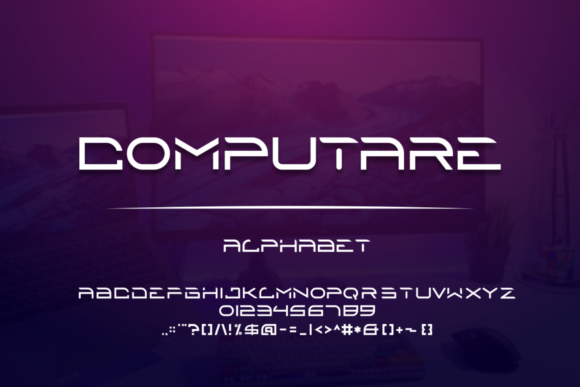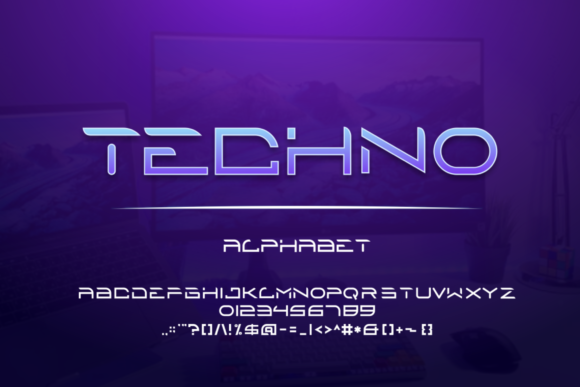
Introducing Eproxy Font: The Modern Sans Serif for Creative Projects
Have you ever been in the middle of a design project, and suddenly, you’re stuck on finding the perfect font? I recall a recent experience where a client asked for a futuristic and sleek logo, and I was on a mission to find a font that would match their vision. After scouring through numerous font libraries, I stumbled upon **Eproxy Font**, a thin and modern sans serif font that instantly caught my attention.
A Personal Encounter with Eproxy Font
I was working on a branding project for a tech startup, and they wanted a font that would convey innovation and sophistication. Eproxy Font was the perfect fit. Its clean lines, futuristic feel, and versatility made it an ideal choice for their logo, website, and marketing materials. I was impressed by how well it worked across different platforms and applications.
An Honest Review of Eproxy Font
What I Love About Eproxy Font ✨
- ✅ Modern and Futuristic Design: Eproxy Font has a sleek and contemporary look that makes it perfect for tech, innovation, and design-related projects.
- ✅ Highly Versatile: This font works well in various contexts, from logos and branding to t-shirt printing and exports.
- ✅ Easy to Read: Despite its thin lines, Eproxy Font remains clear and legible, even at smaller font sizes.
- ✅ OpenType Features: Eproxy Font supports OpenType features, including glyphs and stylistic alternates, giving you more creative control.
- ⚠️ Limited Serif Options: As a sans serif font, Eproxy Font might not be the best choice for projects requiring a traditional or classic look.
- ⚠️ Not Ideal for Body Text: While Eproxy Font is clear, its thin lines might not be suitable for lengthy body text, especially in smaller font sizes.
The Designer Inspiration Behind Eproxy Font
Eproxy Font was designed with the goal of creating a modern, futuristic sans serif font that would meet the needs of designers and creatives. The designer aimed to craft a font that would be both sleek and legible, with a focus on versatility and creative control.
Q: What type of projects is Eproxy Font best suited for?
A: Eproxy Font is ideal for branding, logos, tech, innovation, and design-related projects, as well as t-shirt printing and exports.
Q: Can I use Eproxy Font for body text?
A: While Eproxy Font is clear and legible, its thin lines might not be suitable for lengthy body text, especially in smaller font sizes.
Q: Does Eproxy Font support OpenType features?
A: Yes, Eproxy Font supports OpenType features, including glyphs and stylistic alternates, giving you more creative control.